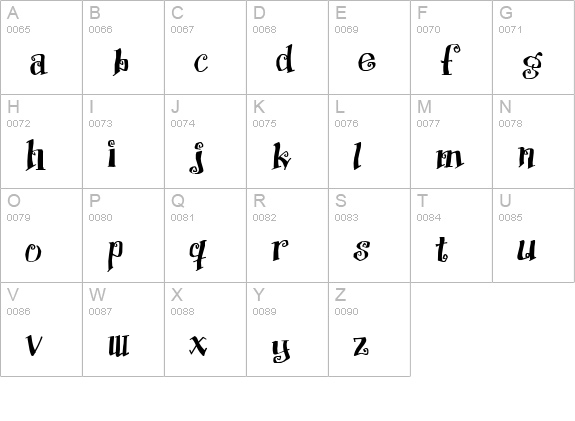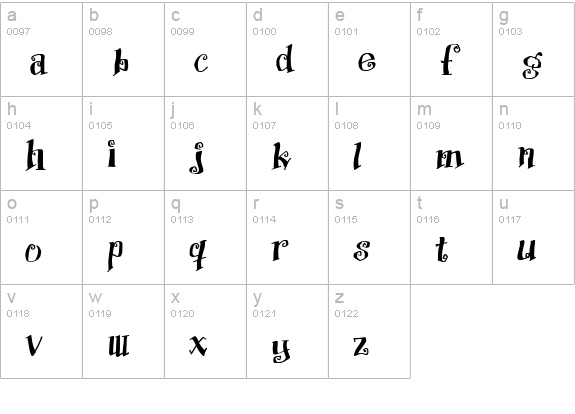
Protection Font Details
Protection font is a versatile and stylish typeface designed to bring a sense of security and strength to your design projects. With its clean lines and bold letterforms, Protection font exudes a sense of stability and protection. Whether you're working on a logo, poster, or website, this font is sure to make a lasting impression. The best part is that Protection font is completely free to download at FontsMarket.com. You can easily access this powerful font and incorporate it into your creations without any cost. Don't miss out on this opportunity to add a touch of security and style to your designs with Protection font. Download it today and start creating impactful visuals that stand out from the crowd.